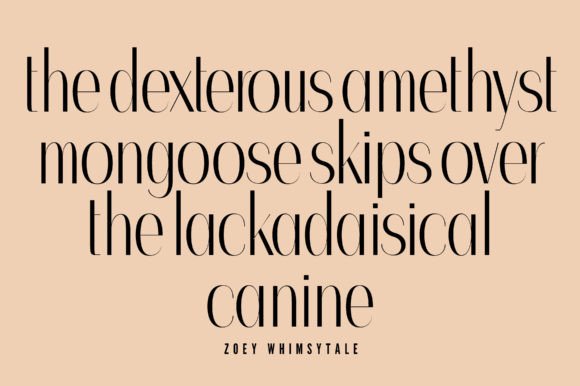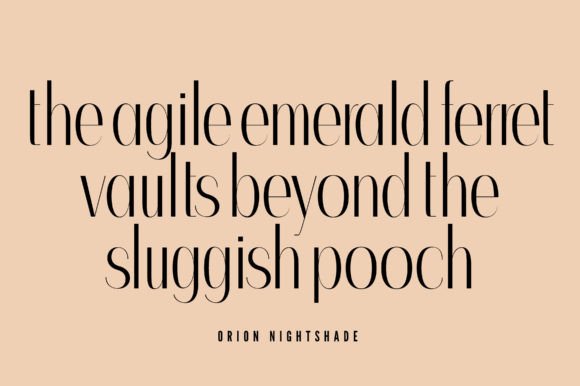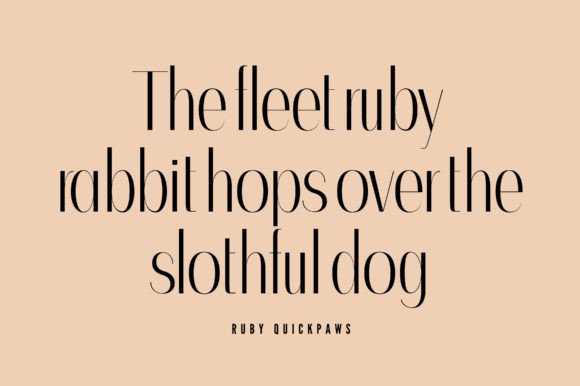
Introduction to Pulari Font
As a designer, you’ve been there – staring at a blank canvas, trying to bring a vision to life. The perfect font can make all the difference, elevating your design from ordinary to extraordinary. That’s where Pulari Font comes in – a chic and modern sans-serif typeface that effortlessly blends minimalism with timeless elegance.
With its clean lines and graceful curves, Pulari captures attention and delivers a powerful typographic statement. Whether you’re working on a creative project or need a reliable design resource, Pulari Font is the perfect addition to your font library. Its versatility and thoughtful design ensure optimal readability, making it perfect for any high-quality design.
Key Features of Pulari Font
- The Pulari Font is designed to be highly scalable, making it perfect for use in various sizes, from small text to large headings.
- This creative font features a unique, hand-drawn style that adds a touch of personality to any design project.
Honest Review: Pulari Font
I recently stumbled upon the Pulari Font, a free download that caught my eye due to its unique design. As a designer, I’m always on the lookout for high-quality resources that can elevate my creative projects.
One thing that works well with the Pulari Font is its clean and modern aesthetic. It’s perfect for any design project that requires a touch of sophistication. I also appreciate that it comes with a transparent background, making it easy to incorporate into any design without any distractions.
Here are some of the key features that make the Pulari Font stand out:
- Perfect for modern design projects that require a touch of sophistication
However, I did encounter a few limitations with the Pulari Font. It’s not as versatile as some other fonts I’ve used, and it may not be suitable for projects that require a lot of bold text. ⚠️
Overall, I’m impressed with the Pulari Font and would recommend it to designers who are looking for a high-quality, modern font for their creative projects. ✨
Tips for Getting the Most Out of Pulari Font
For the best results, use the Pulari Font in conjunction with other high-quality design resources. Experiment with different font sizes and styles to create a unique and eye-catching visual effect. Additionally, consider using a transparent background to make the font stand out.
The Pulari Font is ideal for a variety of creative projects, including logos, business cards, and marketing materials. Its high-quality design and transparent background make it a popular choice among designers and artists.